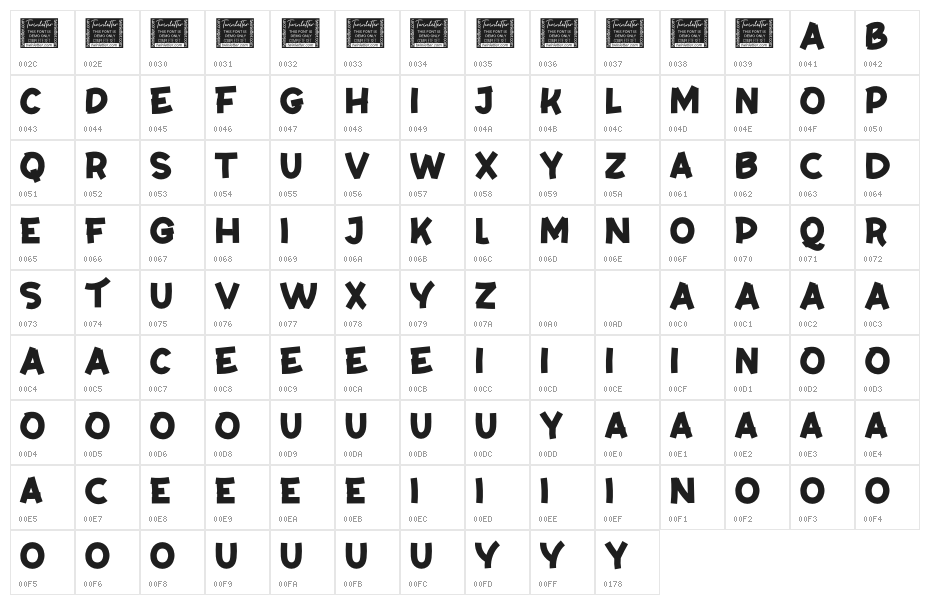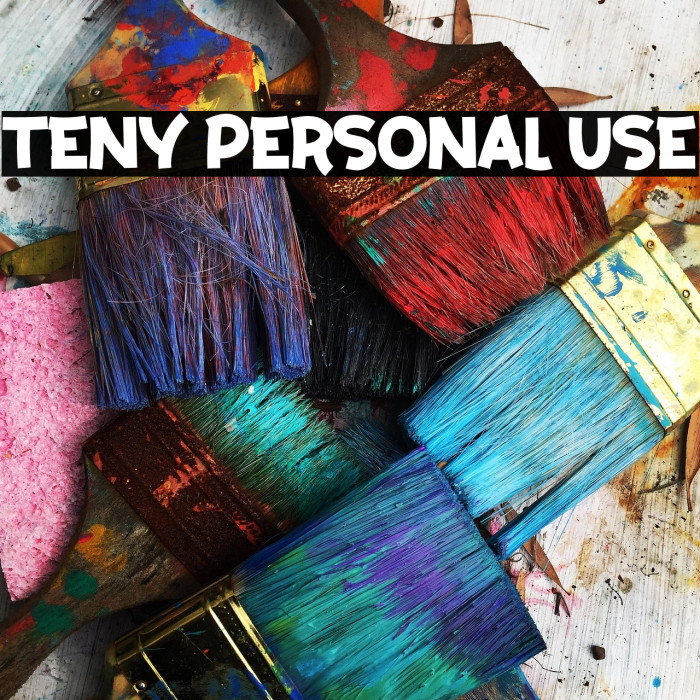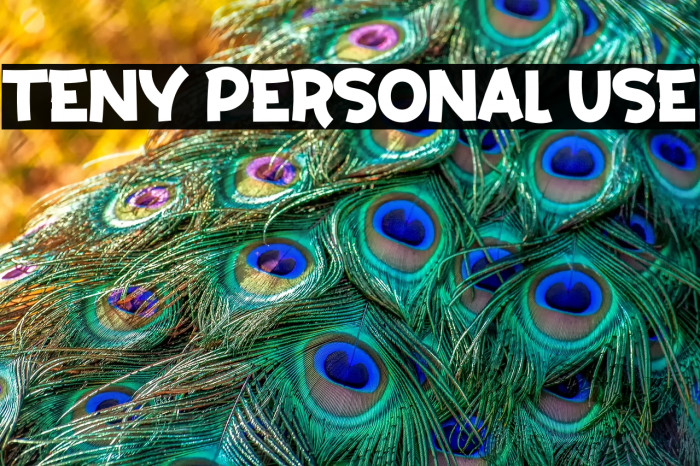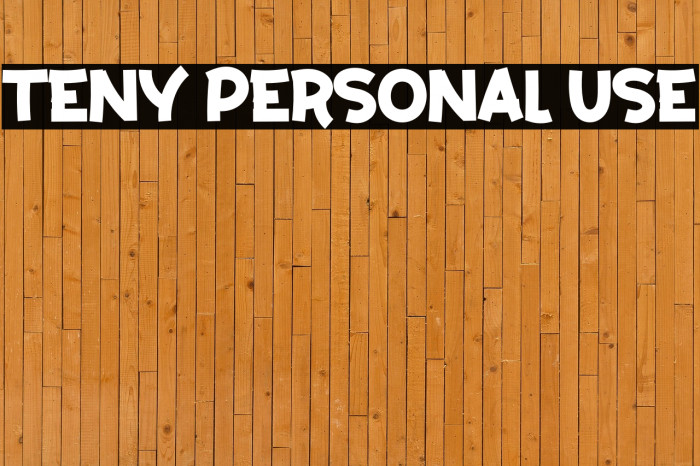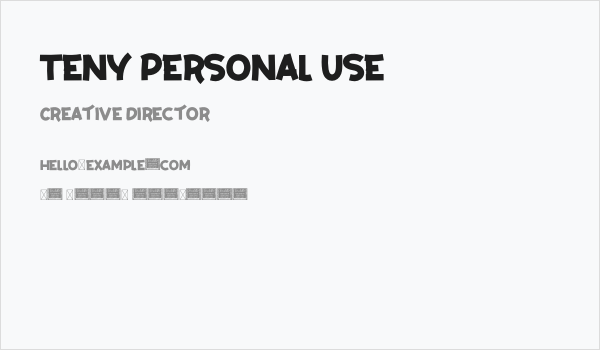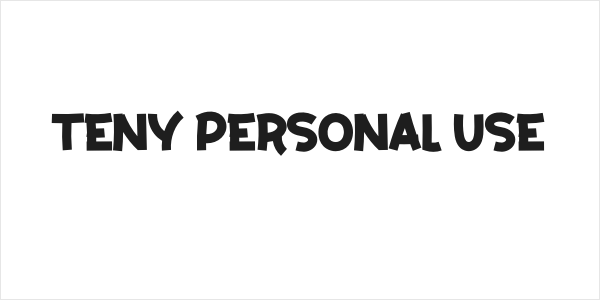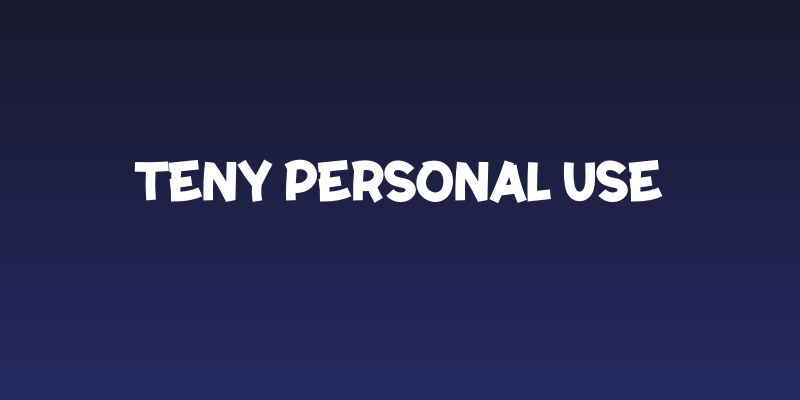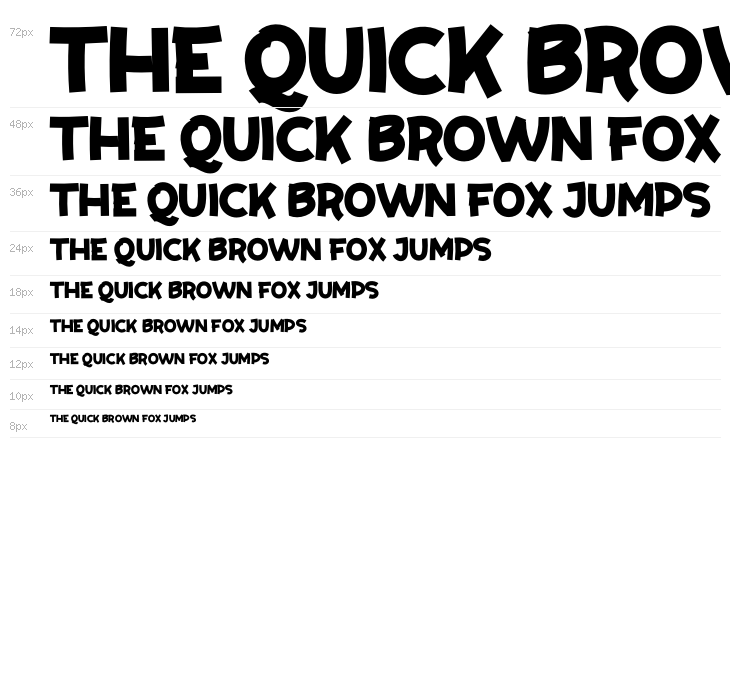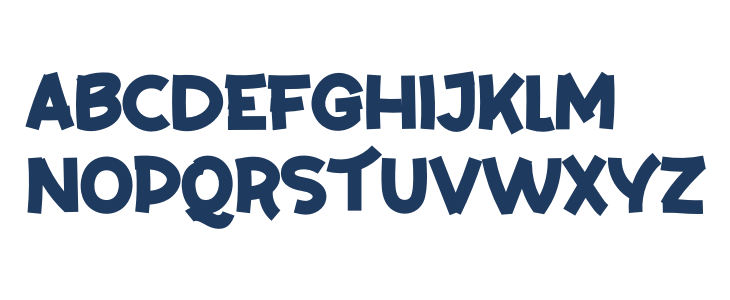
Teny Personal Use Font
Teny Personal Use Description
This font features a bold and playful style with a distinctly hand-drawn appearance. The uppercase letters are characterized by their thick, uneven strokes and slightly exaggerated serifs, giving them a whimsical and energetic feel. The lowercase letters maintain this playful aesthetic, with a consistent stroke weight that adds to the font's overall boldness. The numbers and special characters follow suit, ensuring a cohesive look across all glyphs. This font's unique style makes it stand out, ideal for projects that require a touch of creativity and fun.
| Overall Style | Playful, Whimsical, Hand-drawn |
| Use Case | Headlines, Posters, Branding |
| Proposed Projects | Ideal for children's books, playful branding, posters, and creative projects that require a fun and energetic typeface. |